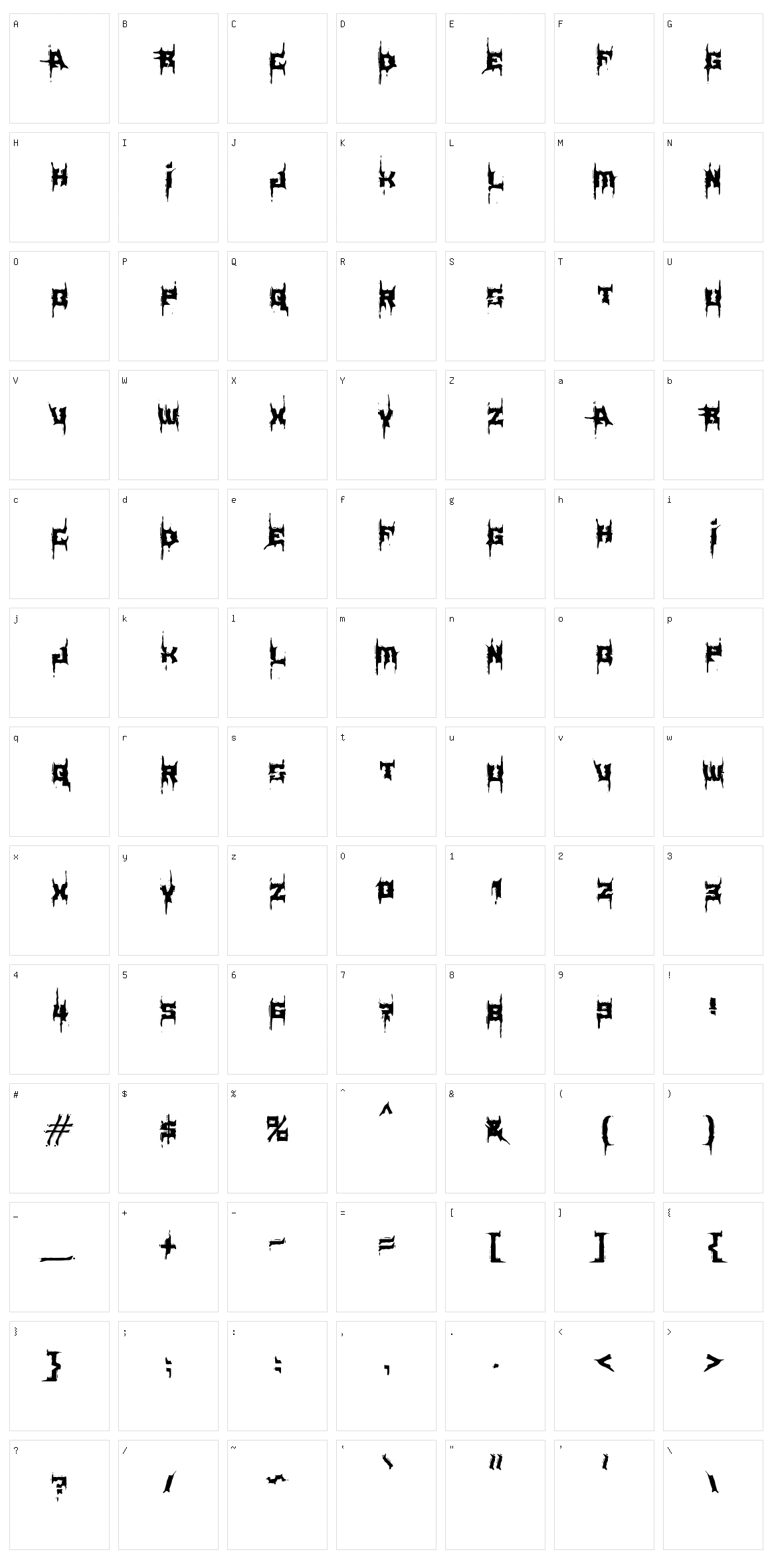
MB Element Brutalized
Designed by: Irina ModBlackmoon
MB-Element - Font series by ModBlackmoon.
*Standard: simple grunge bold font with torn edges.
*Brutalized: spiked metal/horror version.
*Bloody: modifoed version of 'Brutalized', spikes smoothered and look like blood drips now.
*Weathered: 'Standard' version with smooth edges.
*Alienized: an extra version with unreadable scripts. I've done this version while making space ship's display panel style web-template. Decided to share it as well.
Incl. English, European letters and Numbers. May be scaled to extra large size without quality loss.